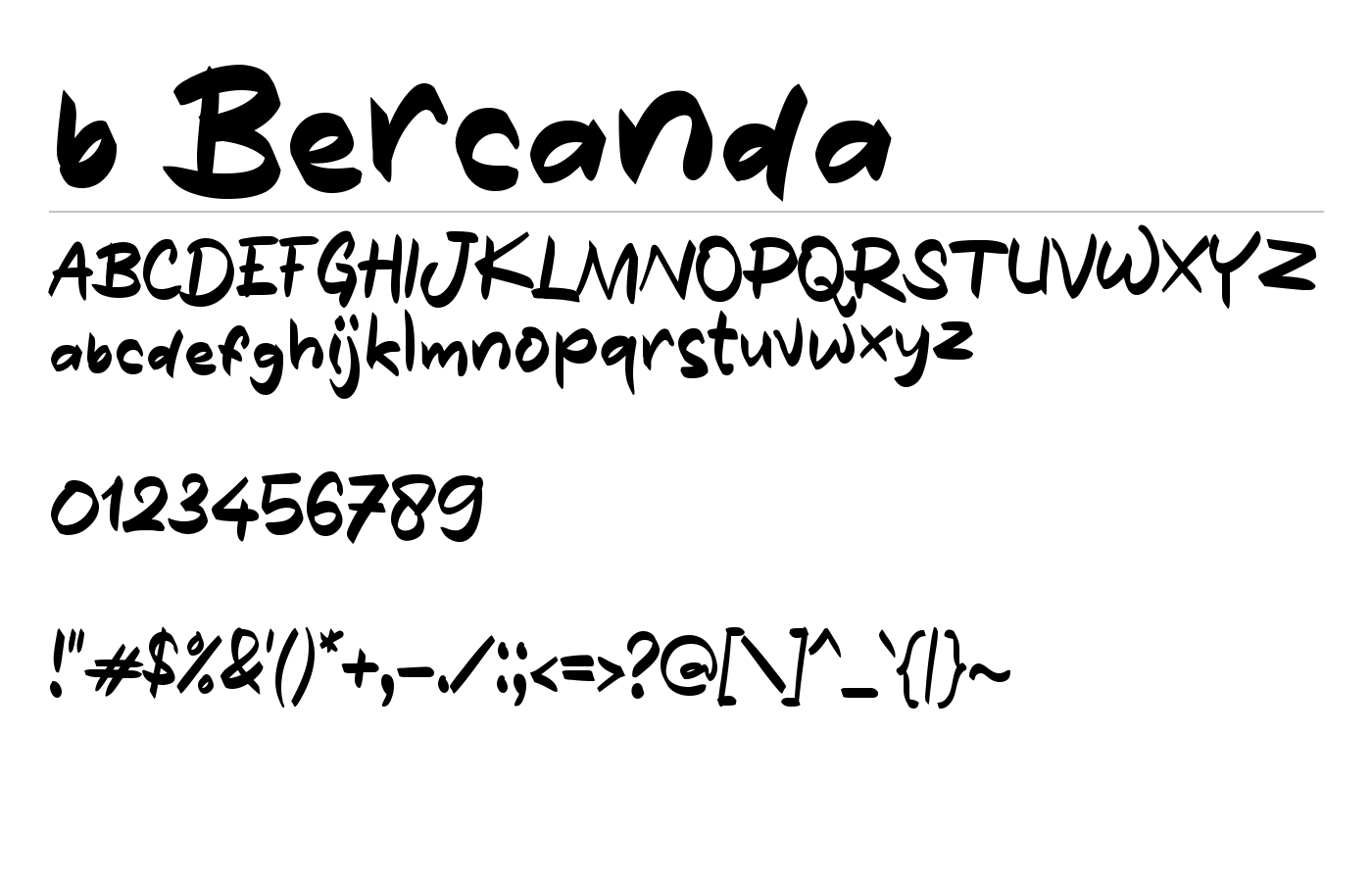
b Bercanda is a lively handwritten sans serif font with a casual and playful vibe. Its irregular, brush-like strokes and moderate x-height give it a friendly, informal feel, making it perfect for creative projects, children's materials, and branding that seeks a personal touch. This font works well in logos, posters, and digital content where a fun and approachable style is desired.
b Bercanda Font